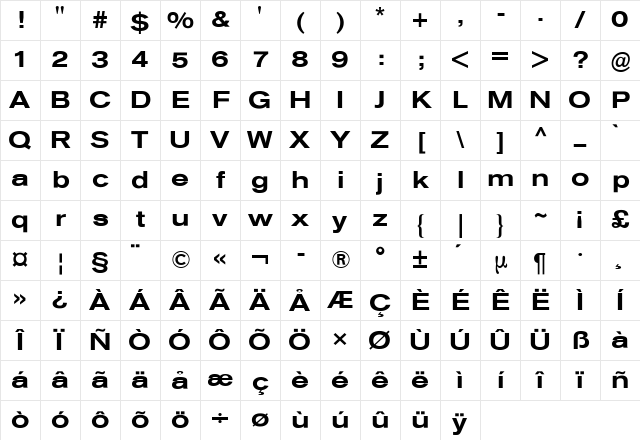
Complete Akzidenz-Grotesk Extended BQ Regular glyph index. Displaying only characters natively supported by Akzidenz-Grotesk Extended BQ Regular font.
Akzidenz-Grotesk Extended BQ takes a clean, functional approach - its unadorned letterforms prioritise legibility and work reliably across screen and print environments.
Font Pairing: Works well alongside a characterful serif or display font that can carry the expressive load while Akzidenz-Grotesk Extended BQ handles the functional copy.
Pro Tip: Use Akzidenz-Grotesk Extended BQ for UI labels, navigation, and short-form body copy where clean legibility is the priority.